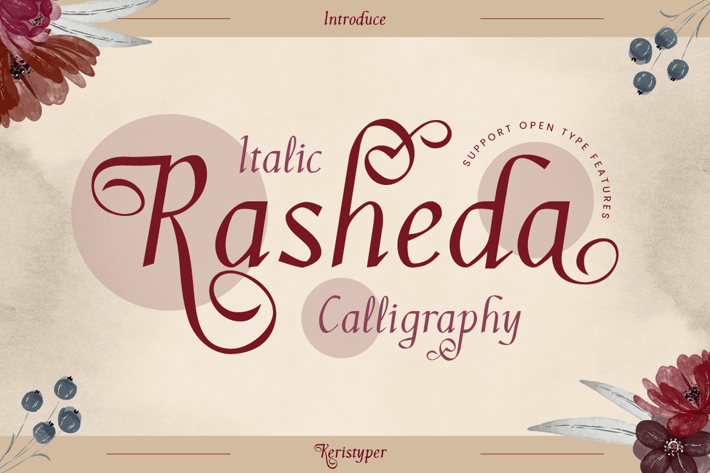
Rasheda Font
Rasheda is a beautiful italic font. Inspired by classic cursive calligraphy from the Renaissance era in the 8th Century. This font is good for logo design, Social media, Movie Titles, Books Titles, short text even long text letters, and good for your secondary text font with script, sans, or serif.
Standard Uppercase & Lowercase
Multilingual : ä ö ü Ä Ö Ü ß ¿ ¡
Alternate & Ligature